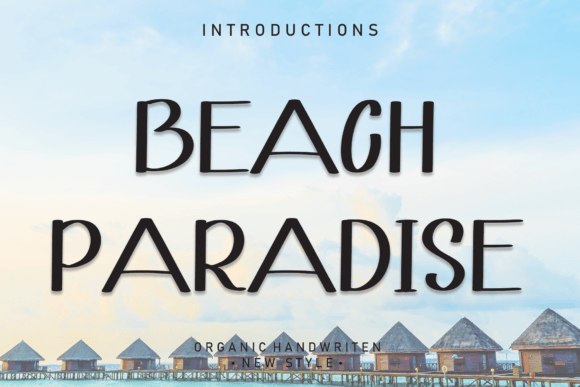
Embrace the allure of sandy beaches, turquoise waters, and tropical breezes with Beach Paradise Font, a captivating and playful handwritten font designed to transport you to a realm of serenity and joy. With its captivating curves and a touch of whimsy, Beach Paradise Font infuses a sense of warmth and happiness into your digital creations.
Unleash your creativity and let your imagination soar as you explore the endless possibilities of Beach Paradise Font. Whether you're crafting personalized greeting cards, designing eye-catching social media posts, or creating presentations that captivate your audience, this font will add a touch of magic to your work. Its versatility shines through, seamlessly adapting to a myriad of projects, from digital designs to handmade crafts.
Escape the mundane and dive into a world of creativity with Beach Paradise Font, the perfect companion for those seeking a font that sparks joy and ignites the imagination. Immerse yourself in the beauty of its flowing lines and let your designs radiate with a distinct charm that will leave a lasting impression.